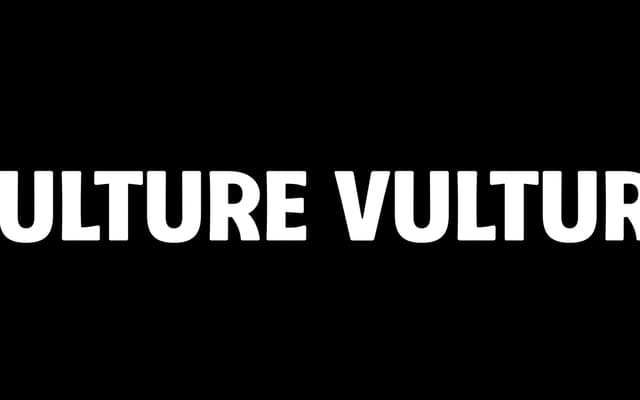
Culture Vulture
A rounded display face drawing on multiple historical type eras, sold as a single style with full character, numeral and punctuation coverage.
Culture Vulture pulls from a range of type history and stylistic periods to arrive at a rounded, expressive display character. It ships with a full character set, numerals and punctuation, making it ready for immediate use in titles, posters and branding. The single-style offering keeps it focused and straightforward for projects needing a nostalgic, eclectic touch.
Described explicitly as a rounded display typeface, drawing on multiple historical type eras and styles for an eclectic decorative character.